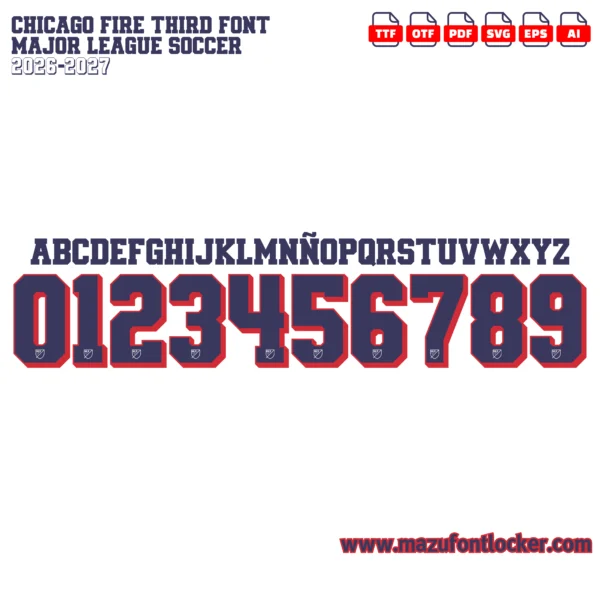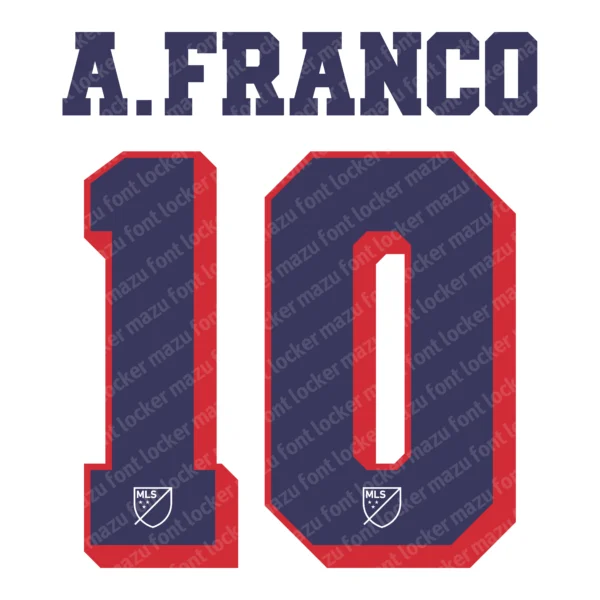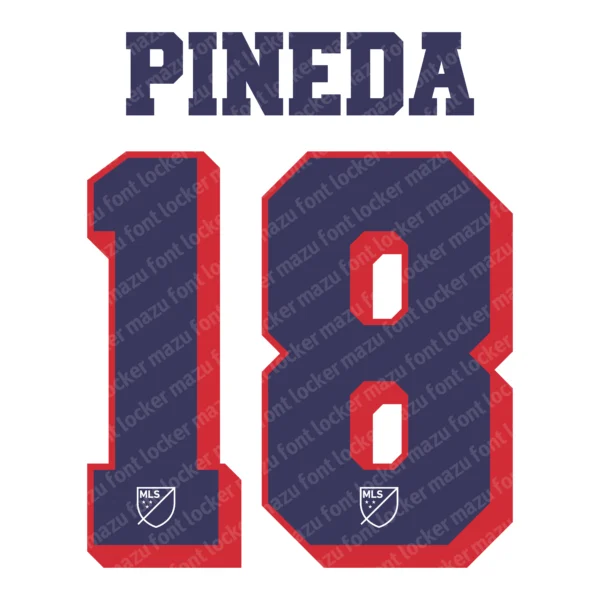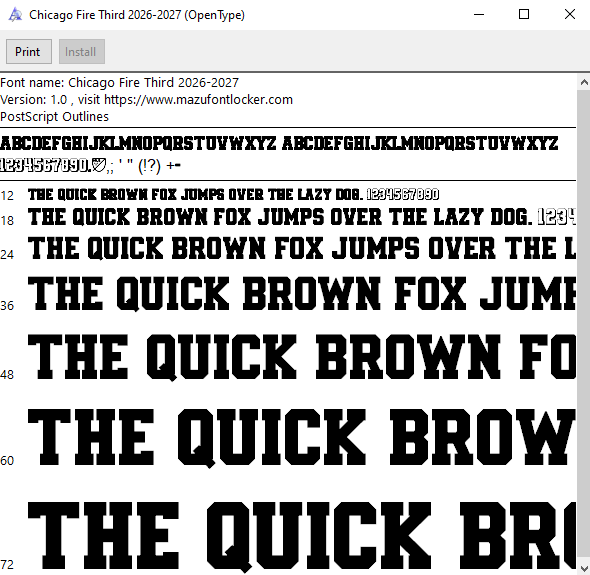
Chicago Fire Third 2026-2027 Font Vector – Legendary Men in Red Masterpiece
Download the Chicago Fire Third 2026-2027 Font Vector (AI, EPS, SVG, PDF, OTF, TTF) and unleash the fierce, electric match typography that defines Chicago Fire’s iconic Third kit campaign as the legendary Men in Red bring their ambition, power, and relentless winning mentality to the world stage.
This font captures the razor-sharp, thunderous lettering that embodies Chicago Fire’s proud club identity, rich American soccer heritage, iconic red tradition, and unstoppable fighting spirit — delivering premium quality and explosive energy for jersey mockups, football graphics, sports branding, and fan creations.
Chicago Fire Third 2026-2027 Font Vector – Fire Heritage Typeface
The Chicago Fire Third 2026-2027 Font Vector is a premium typeface that accurately recreates the official match lettering worn by Chicago Fire on their third kit during the 2026-2027 season. This high-quality vector font kit captures the bold, clean, and instantly recognizable typography that perfectly complements the club’s iconic red identity.
Designed for professional designers, football enthusiasts, and passionate Fire supporters, the Chicago Fire Third 2026-2027 Font Vector delivers exceptional authenticity for creating realistic jersey mockups, football merchandise, social media graphics, match posters, and custom fan artwork. Every character has been carefully recreated to match the powerful and precise visual style of one of Major League Soccer’s most historic clubs.
This font stands out thanks to its precise vector construction and authentic club-inspired styling. Every letter and numeral has been meticulously recreated to match the official shirt lettering used on the third kit throughout the 2026-2027 season and associated campaigns. Whether you’re producing professional kit templates or creating eye-catching football content, the Chicago Fire Third 2026-2027 Font Vector delivers a genuine match-ready appearance inspired by the proud identity of the Fire.
The lettering featured in the Chicago Fire Third 2026-2027 Font Vector combines clean geometric lines with powerful modern proportions. The result is a premium and highly readable typeface that reflects Chicago Fire’s fighting spirit, attacking football, resilience, and proud Chicago heritage.
- Complete uppercase A–Z alphabet and numbers 0–9 in authentic Chicago Fire Third 2026-2027 style
- Recreate the distinctive look of Chicago Fire player names and squad numbers for creative projects
Chicago Fire Third 2026-2027 Season